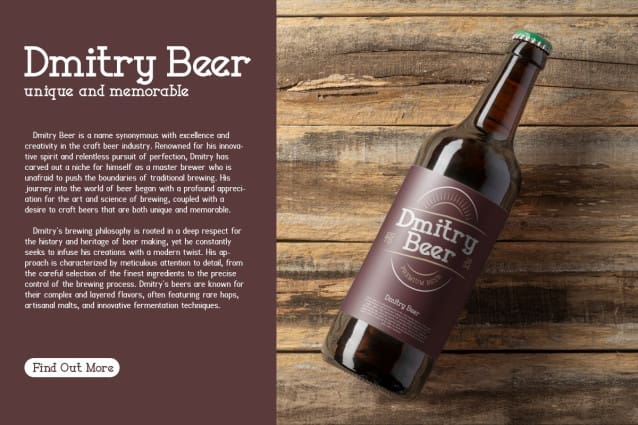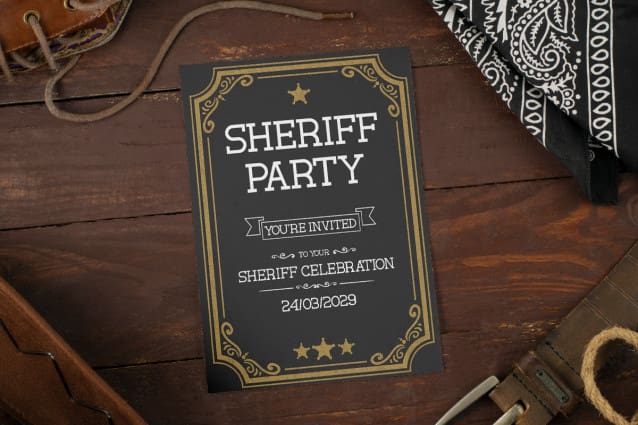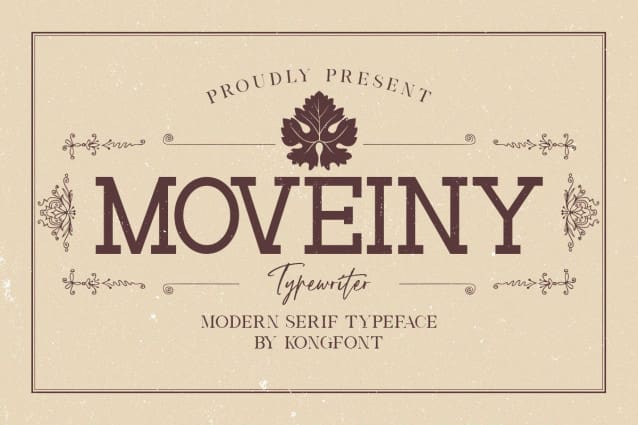
Moveiny Font
Moveiny Font – Modern Classy Serif Font is one of the fonts that has a classic and modern font impression. This impression is what makes this font different from other serif fonts. Moveiny Font – Modern Classy Serif Font has a simple shape and a thin serif at the end. It has curved lines that extend beyond the boundaries of the letters. This makes the appearance of this font look classic and elegant.
The characters described above make Moveiny Font – Modern Classy Serif Font one of the best fonts that have high compatibility when used as a product branding. Moveiny Modern Classy Serif Font can be used on shop signs, etc. The font can be used as a digital font and printed in the appropriate font size cause supported by a legible font type.
Moveiny Font – Modern Classy Serif Font is also the best font for classy product branding. It can be used on packaging as well as a commercial on websites and display posters. This font also has high compatibility when used for social media, posting feeds, and Instagram stories.